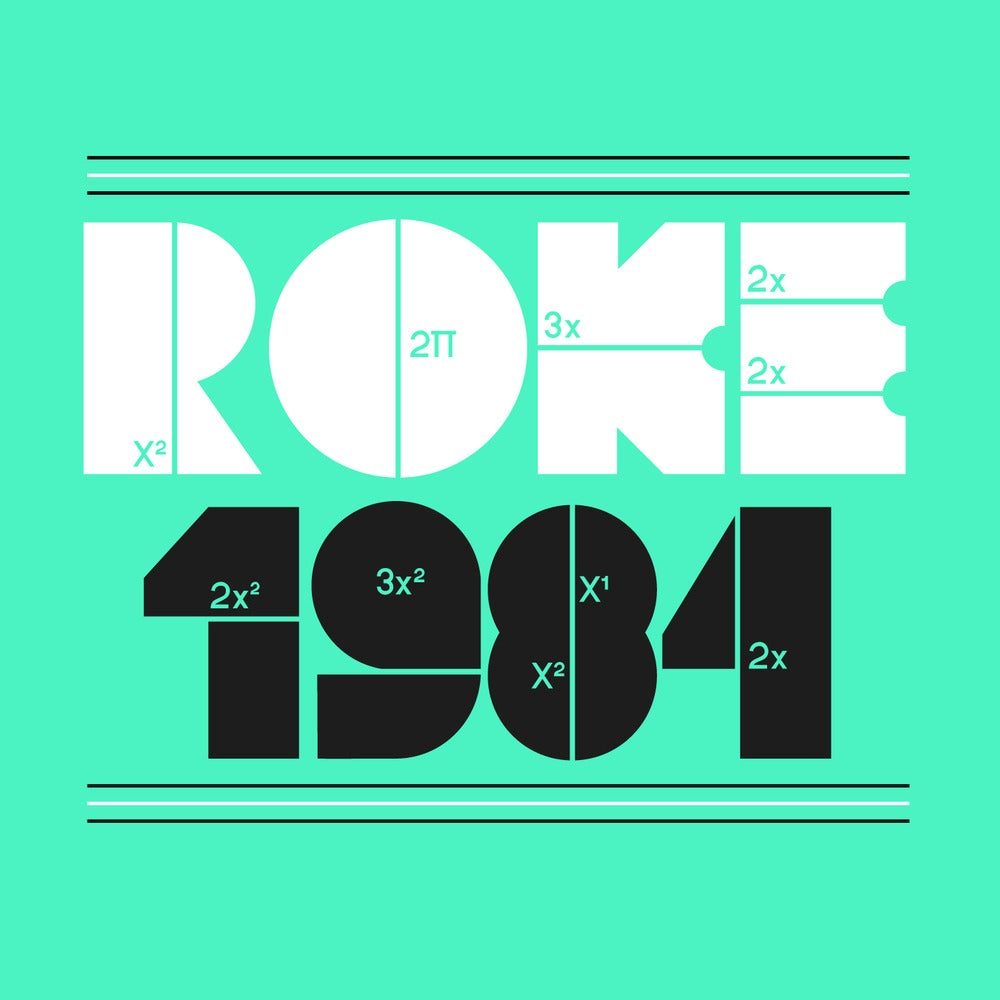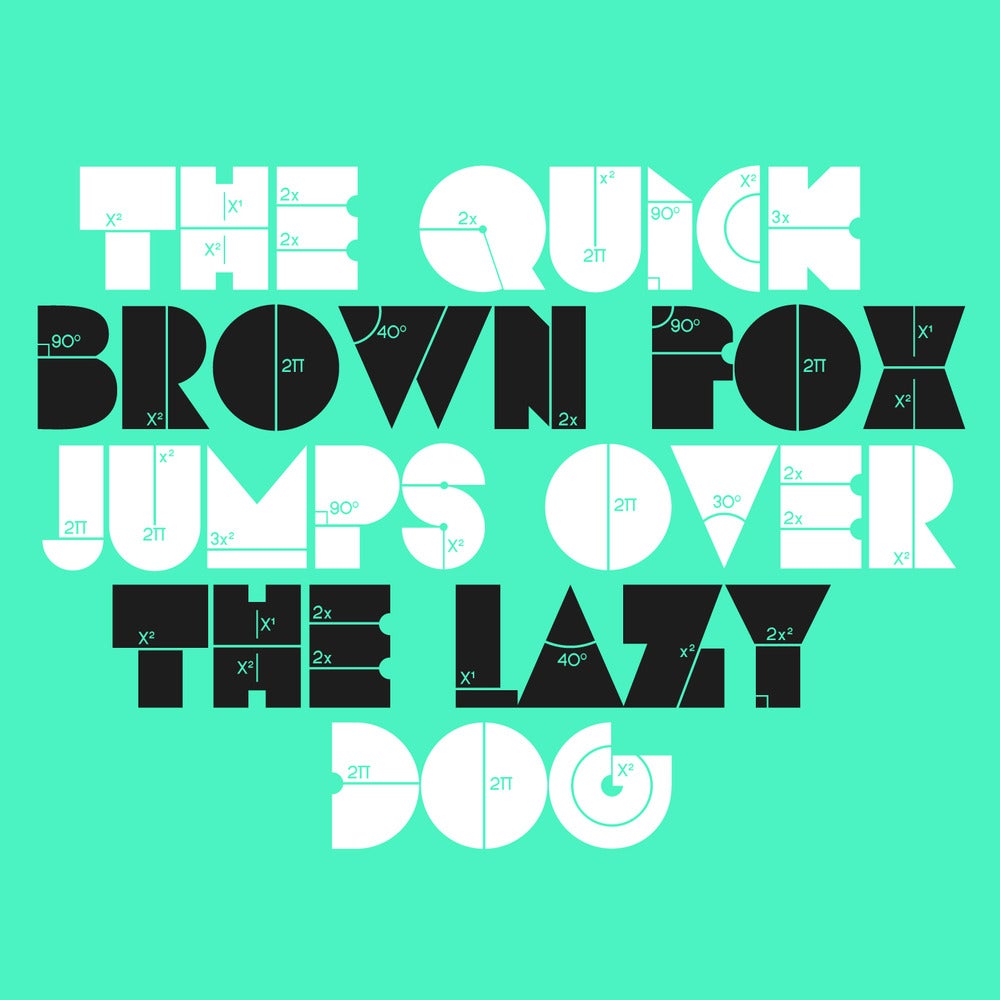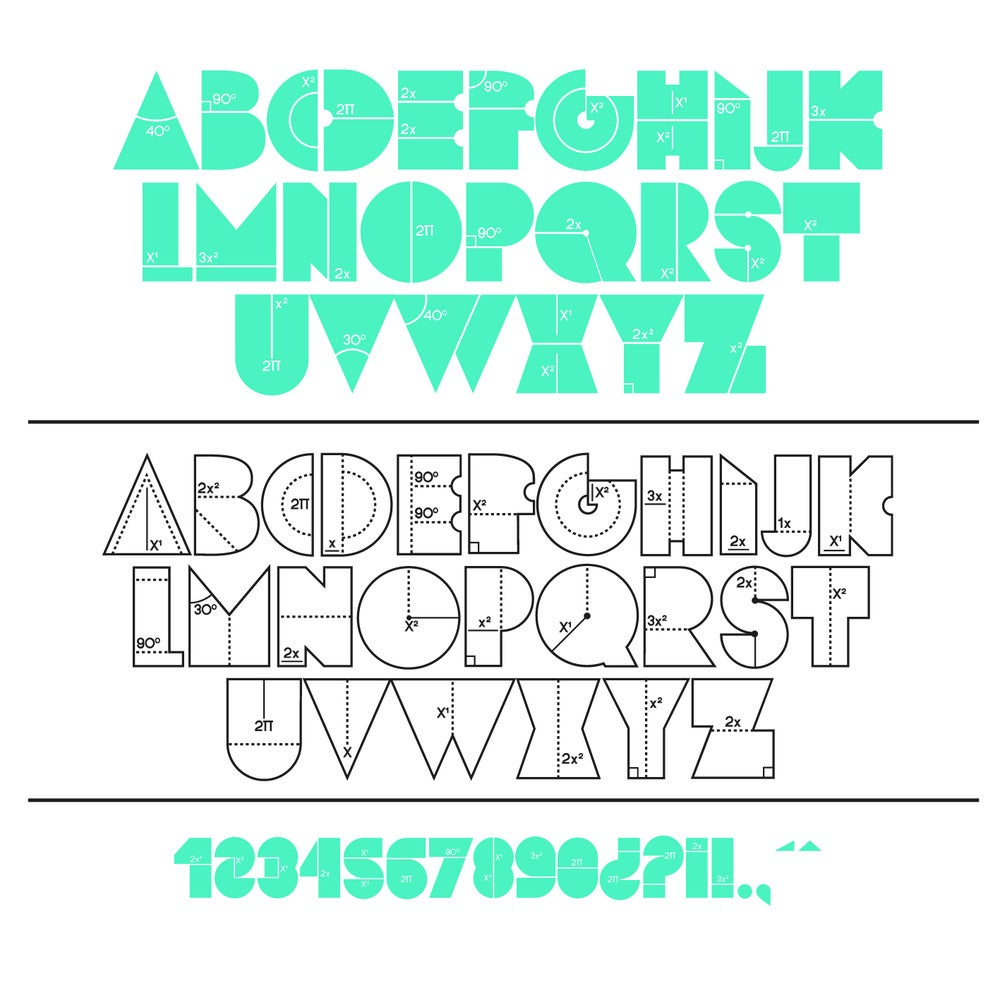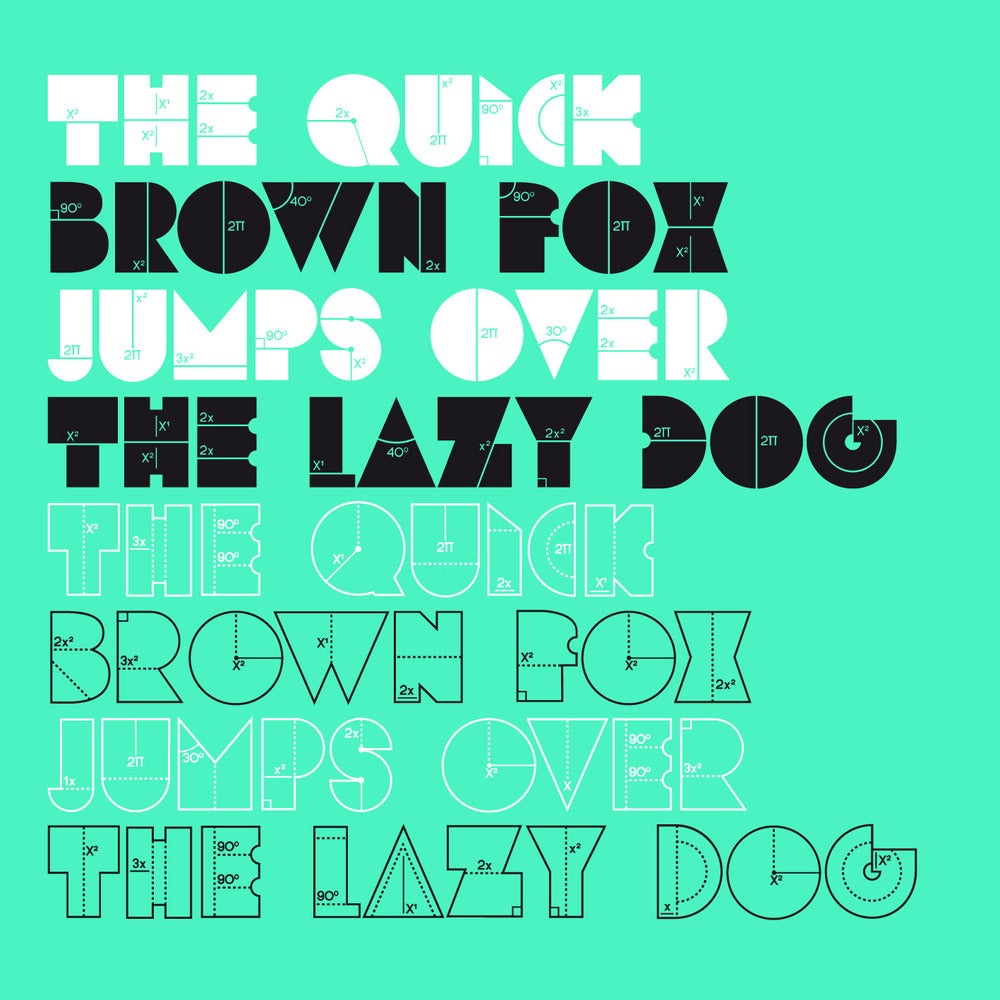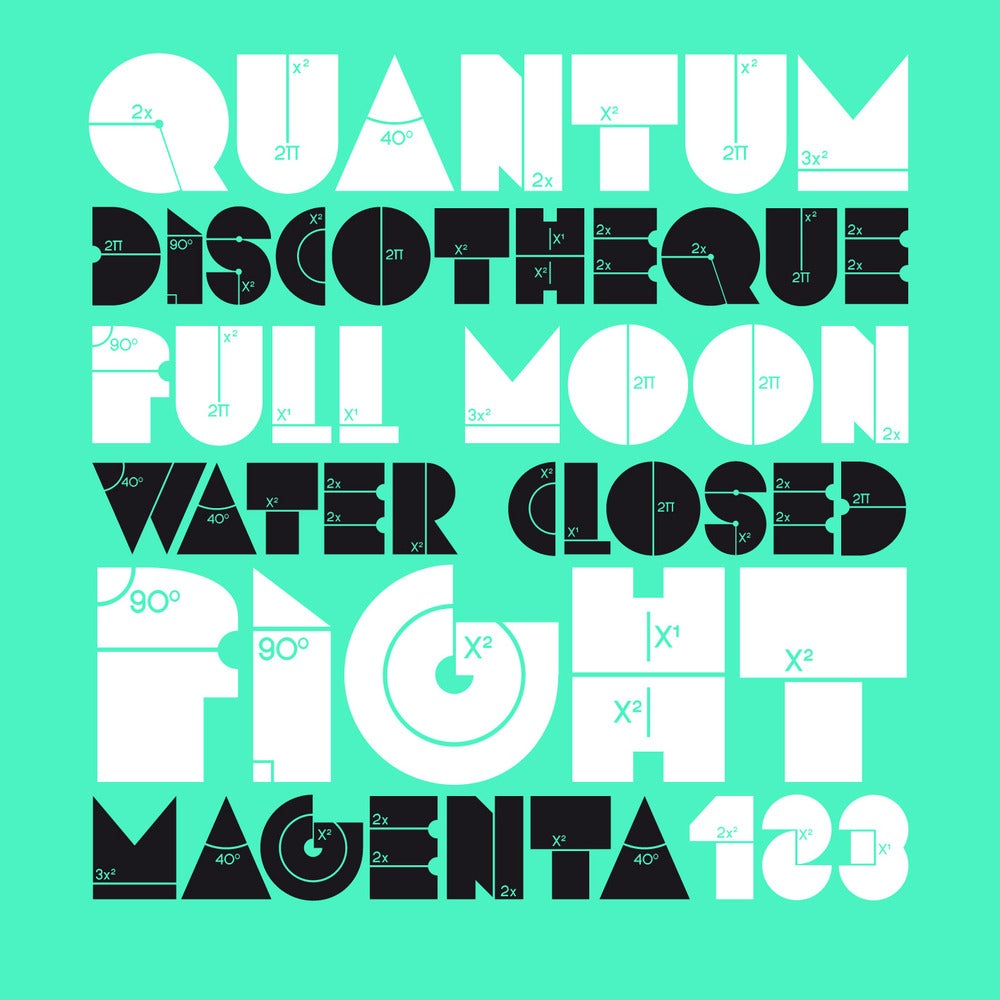
Roke 1984
Roke1984 is a display font based on geometric forms and mathematic symbols. It's a typeface that conveys technicality and science with a very mathematical look. This font includes accents and numerals.